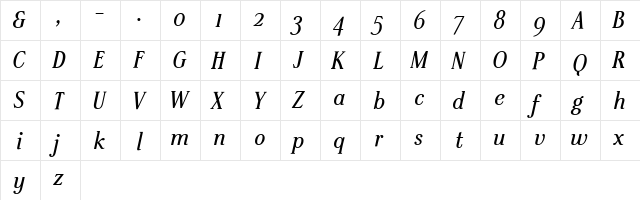
SteppITCStd-BoldItalic xPDF Regular
Design Context for SteppITCStd-BoldItalic xPDF Typeface
SteppITCStd-BoldItalic xPDF is a composed and adaptable typeface that performs quietly and consistently across a wide range of design contexts. Its italic angle brings a sense of urgency and motion to the letterforms. Its bold stroke weight gives it real presence on the page.
Pro Tip: Use SteppITCStd-BoldItalic xPDF for emphasis, pull quotes, and subheadings where its slanted energy can add rhythm to the layout.